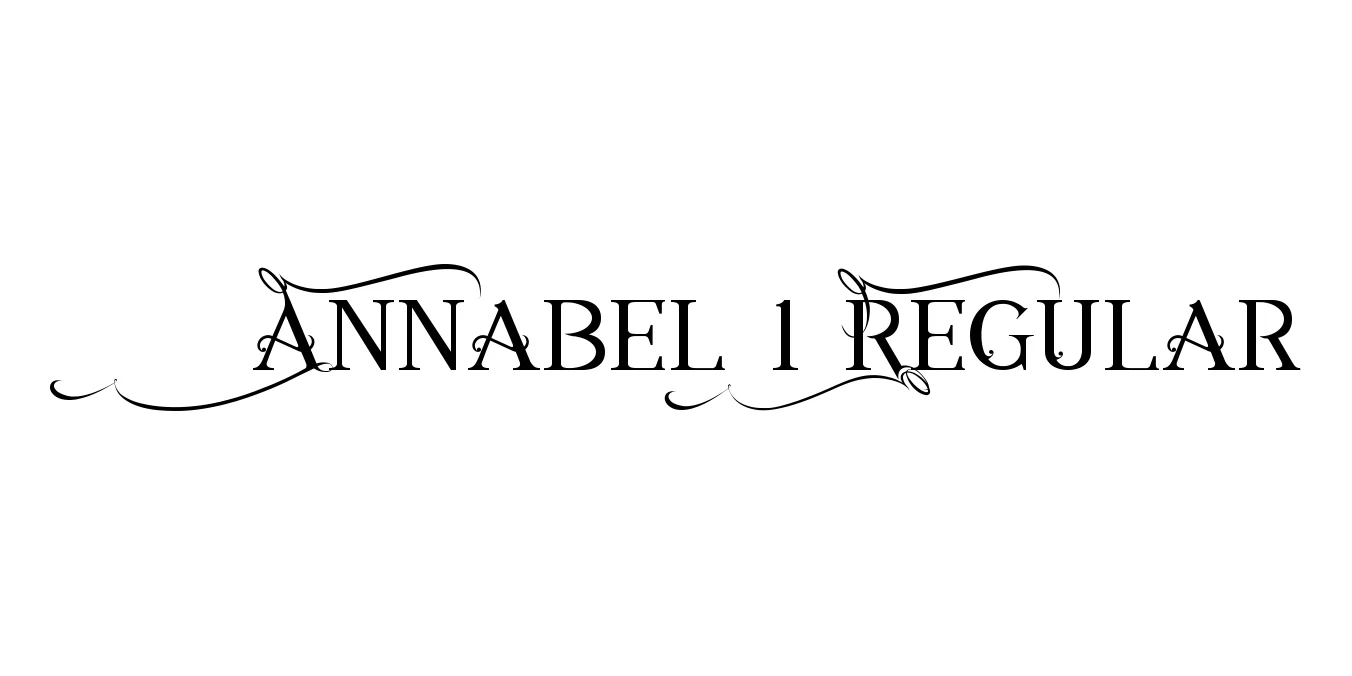
Annabel 1 Regular
Designed by Alan Meeks
| Category | Serif / Art Deco |
| Designer | Alan Meeks |
Annabel 1 Regular is a sophisticated display typeface that draws heavily from the Art Deco movement of the 1920s and 30s. Characterized by its high-contrast strokes and elegant, elongated letterforms, this font captures a sense of vintage glamour and architectural precision. Its unique geometric structures and sharp serifs make it an excellent choice for designers aiming to recreate the opulence of the Jazz Age while maintaining a clean, modern edge.
The history of the font is rooted in the tradition of decorative lettering used for luxury advertising and theatrical signage. Over the decades, it has remained a popular choice for editorial designers who require a typeface with a strong personality that doesn't sacrifice readability at larger scales. Whether applied to digital media or physical print, Annabel 1 Regular provides a timeless aesthetic that bridges the gap between classic craftsmanship and contemporary style.
Annabel 1 Regular Best Uses
Perfect for magazine headers, fashion spreads, and title pages.
Ideal for luxury brand logos and high-end cosmetic packaging.
Adds a touch of class to wedding invites, gala programs, and formal stationery.
Highly effective for eye-catching posters and vintage-themed promotional materials.